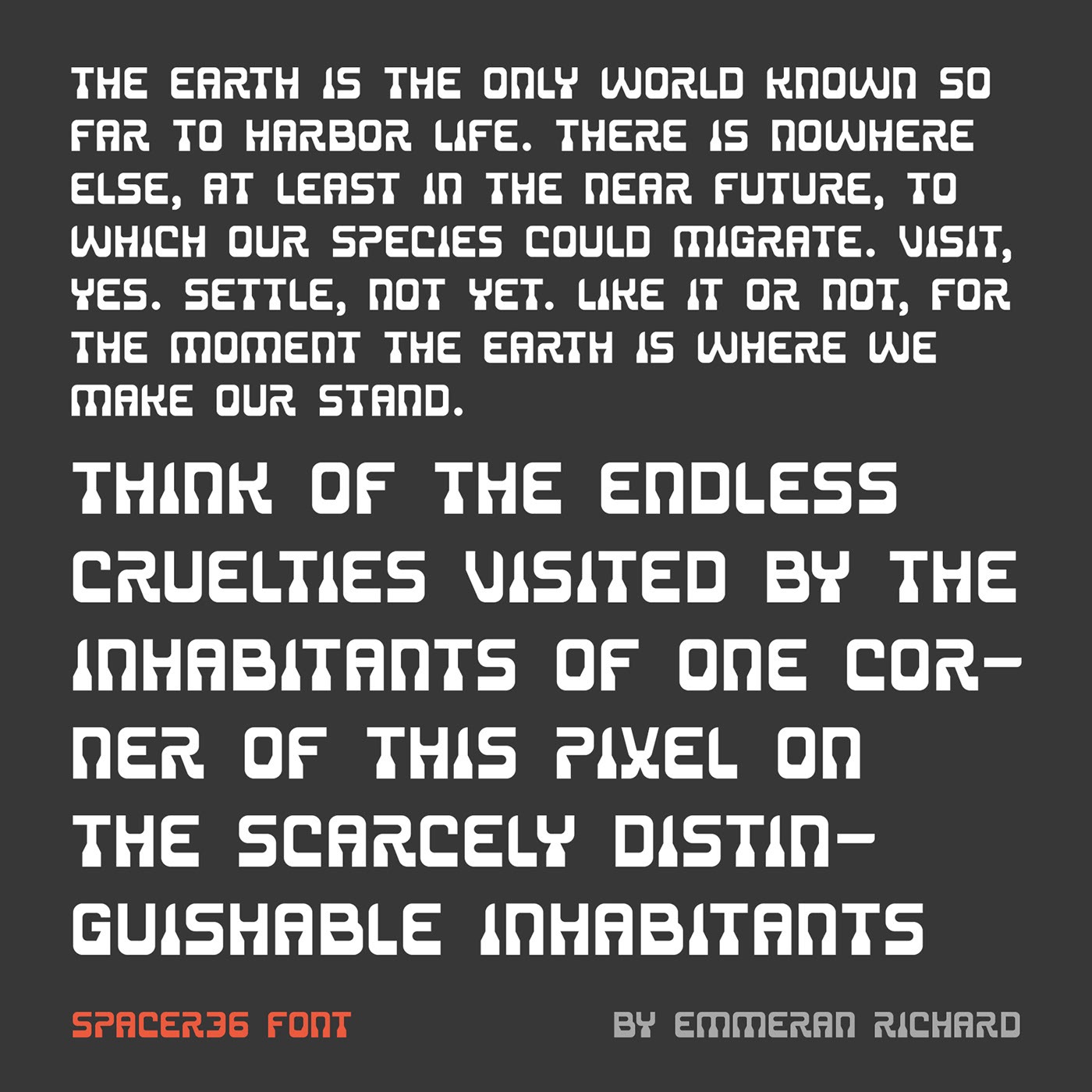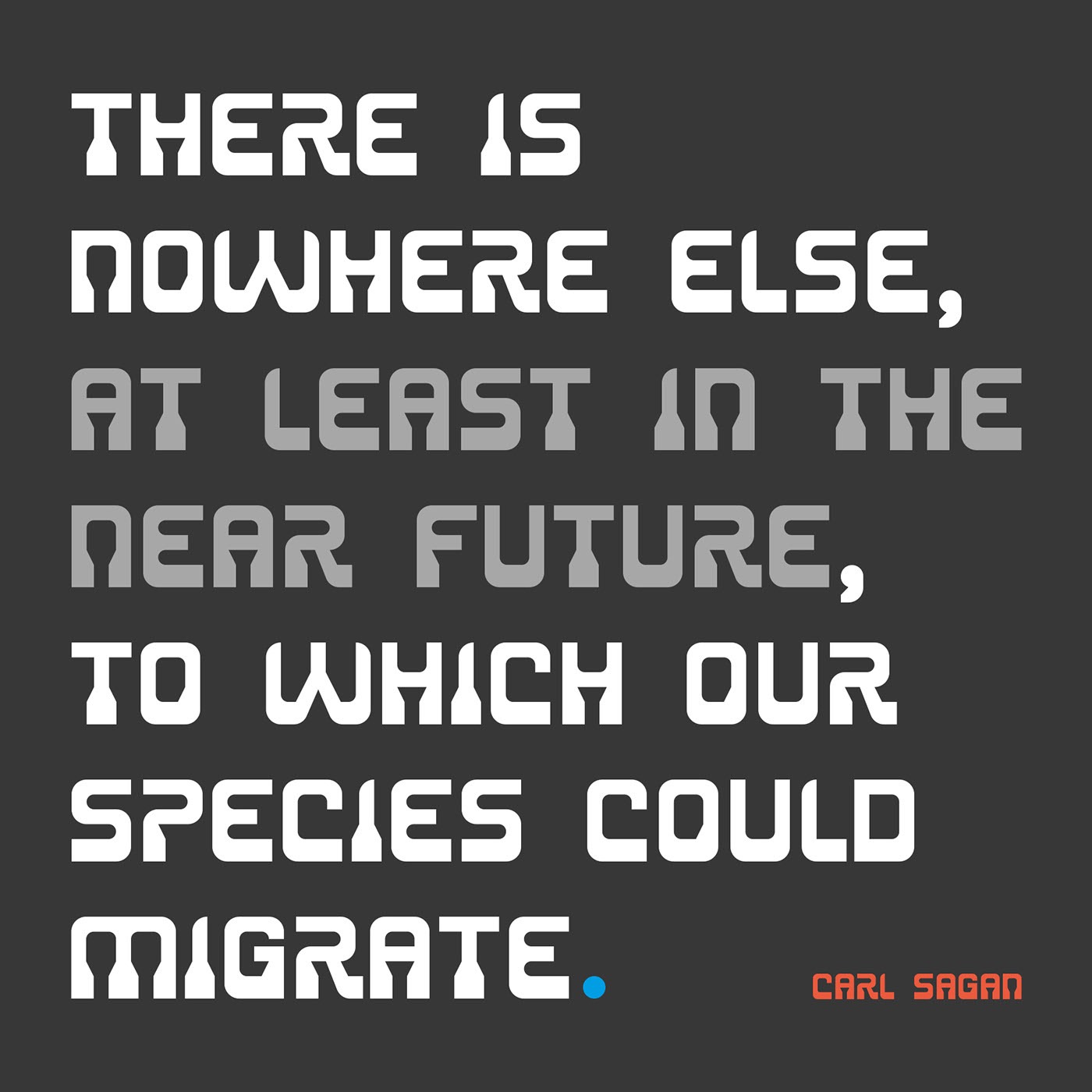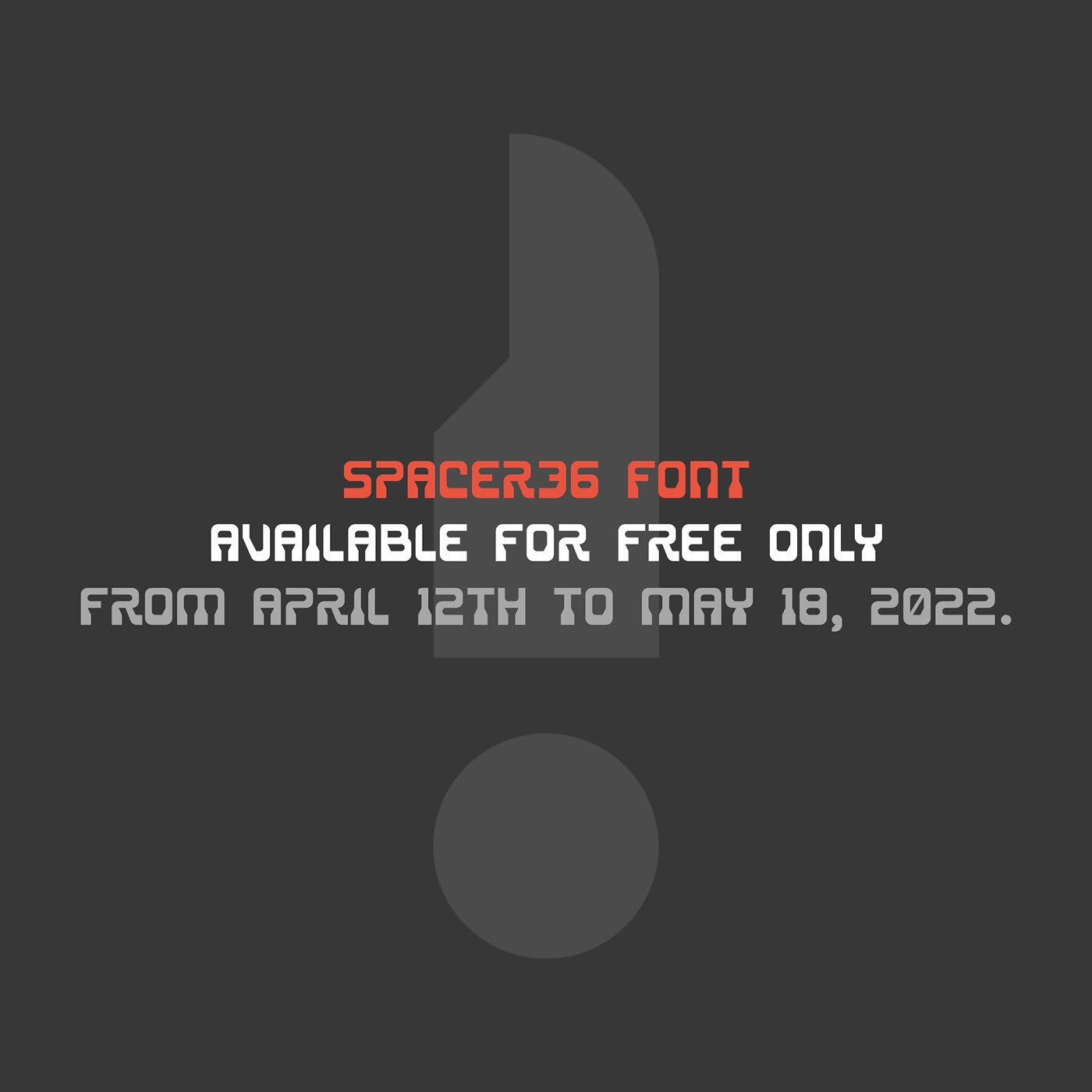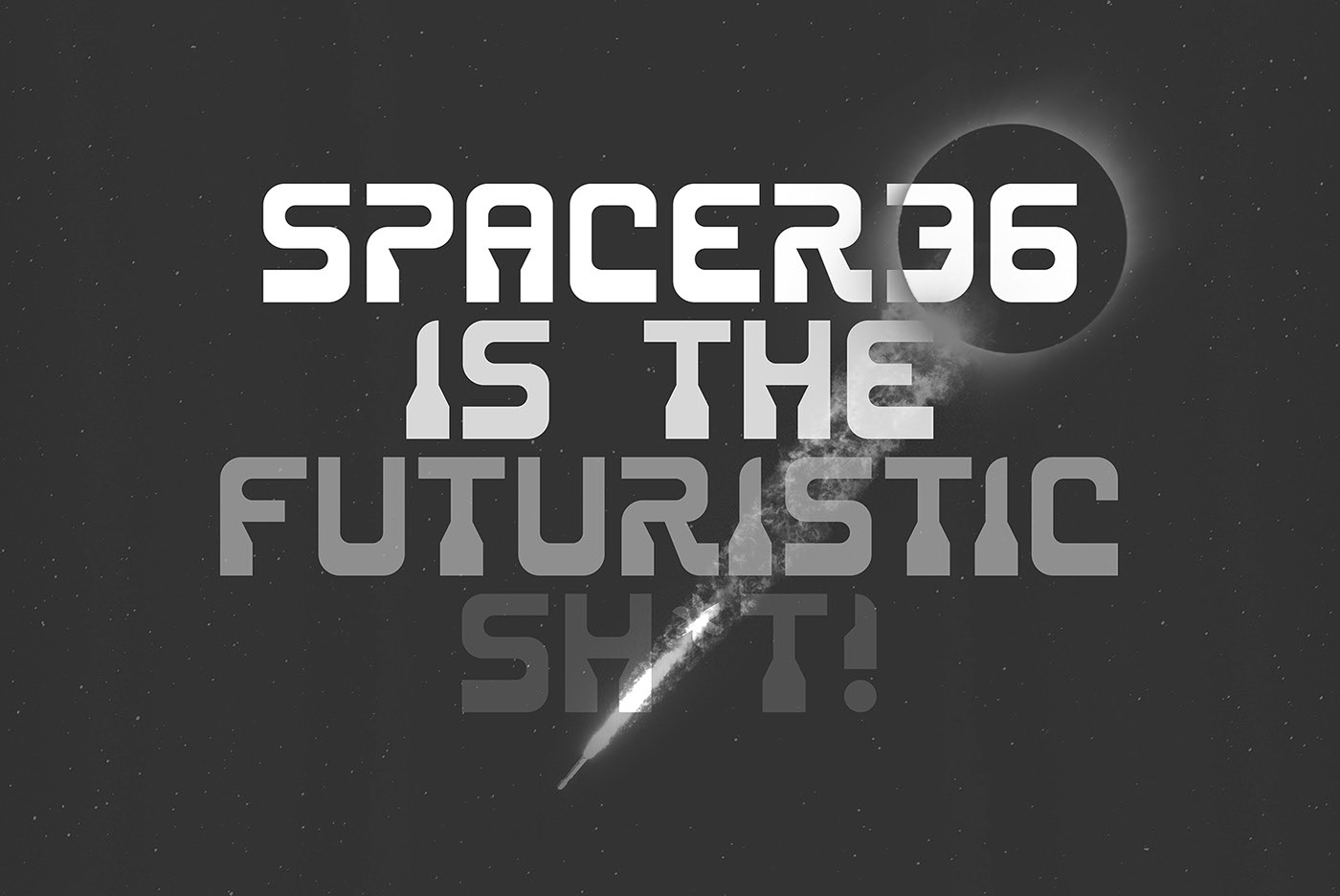
Spacer36 Display Font
This is a future-looking display typeface. It’s designed and shared by Emmeran Richard. Made for the 9th edition of 36 days of type and inspired (among others) by the font used for Scorpions logo, author started working with a simple grid on Illustrator and then made it shine on Glyphs 3 app.